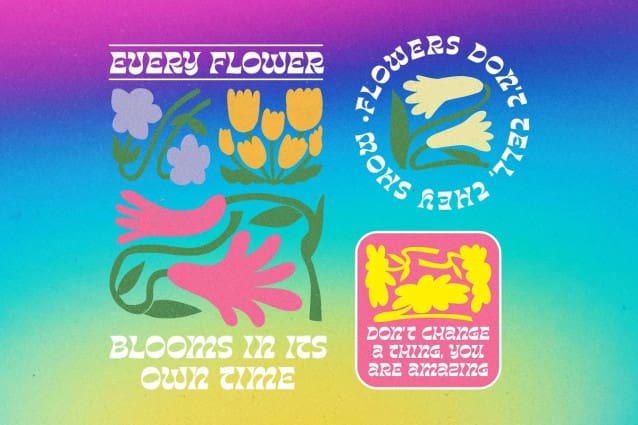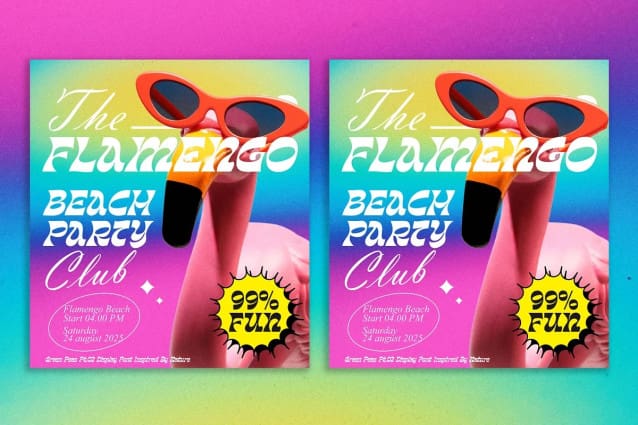
Green Peas Pt .02 Font
Green Peas Pt .02 Font – the groovy love child of retro and nature, hitting all the right notes for your designs. This font has a contagious energy, like a party that never ends, pumping joy into every letter. Get ready to disco!!